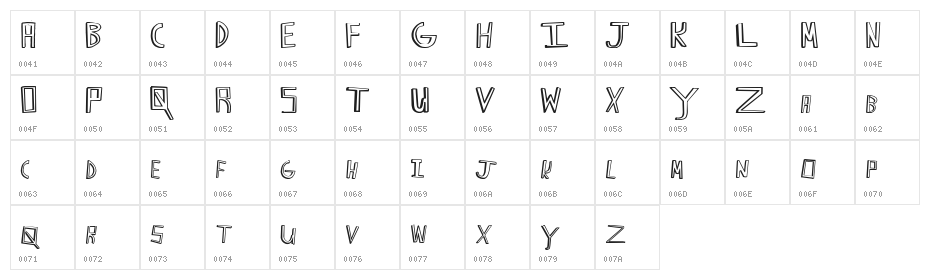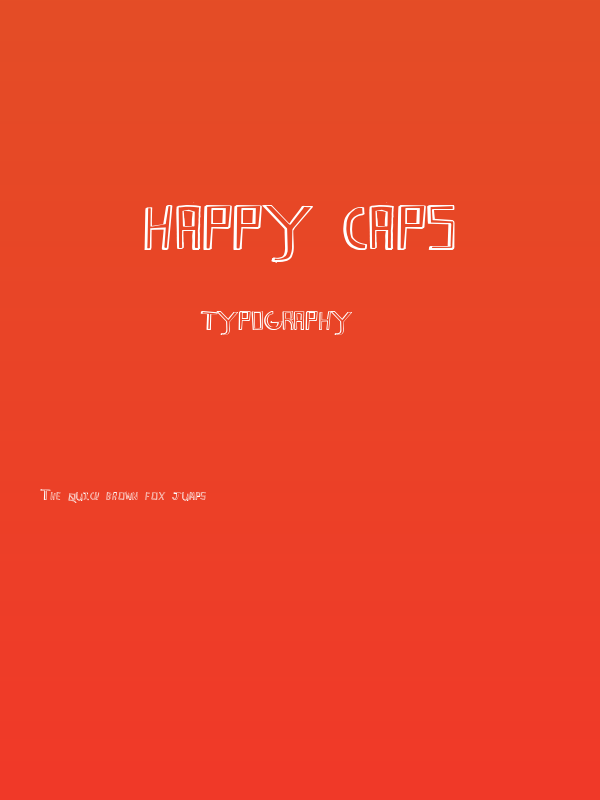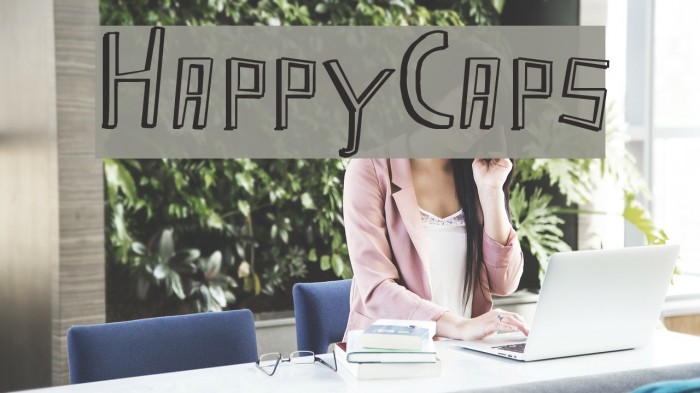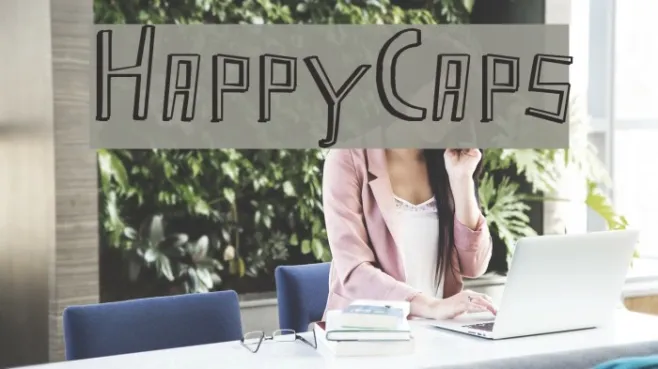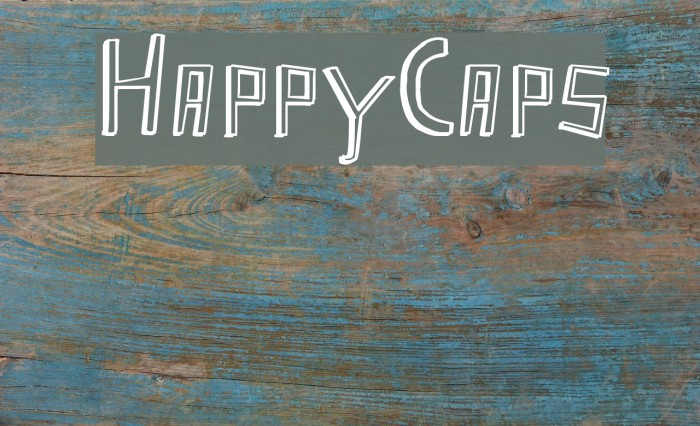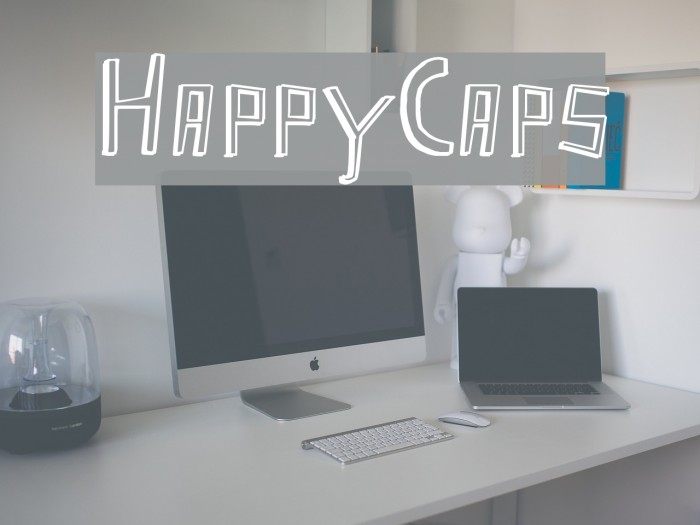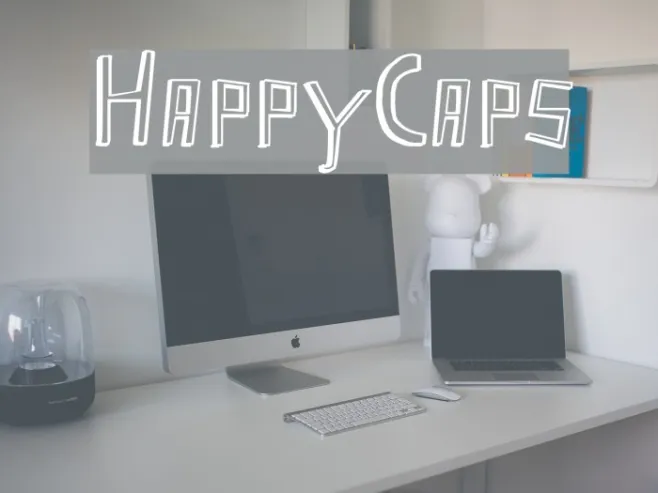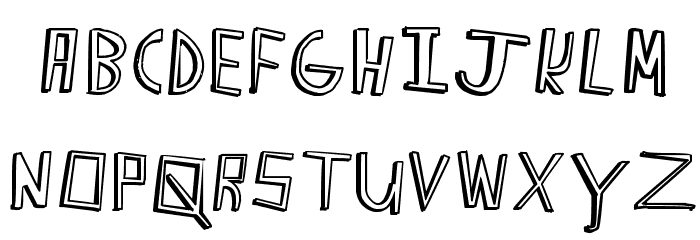
Happy Caps Font
Happy Caps Description
This playful and bold font features a unique hand-drawn style with a double-line effect that adds depth and character. The uppercase letters are quirky and slightly irregular, giving a sense of movement and fun. The lines are thick and consistent, creating a strong visual impact. The font's whimsical nature makes it perfect for creative projects that require a touch of personality and flair. Its distinct style is suitable for eye-catching designs where individuality is key.
| Overall Style | Whimsical and playful |
| Proposed Projects | Ideal for children's book covers, playful branding, posters, and creative invitations. |